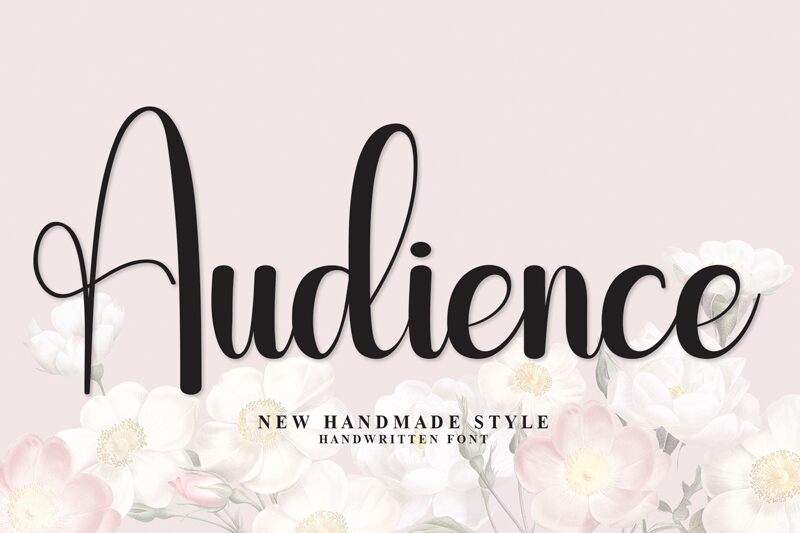
Audience
Audience font by Scratchones captivates with its elegant handwritten style and condensed form. This free font blends sophistication and accessibility, making it perfect for various creative projects. Its fluid strokes and graceful curves add an artistic touch, ideal for wedding invitations, branding, and lifestyle blogs.
Beyond aesthetics, the Audience font’s distinctive personality highlights individuality in personal projects or commercial designs. Download this unique typeface to elevate your design game with a touch of refined charm.